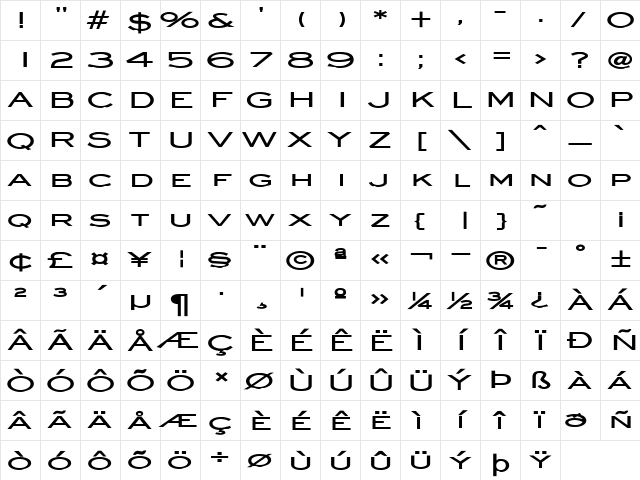
Eye glass Extended Bold
Design Context for Eye glass Extended
Eye glass Extended is a composed and adaptable typeface that performs quietly and consistently across a wide range of design contexts. Its bold stroke weight gives it real presence on the page.
Pro Tip: Use Eye glass Extended in both headline and body roles to test its range before committing to a single application.